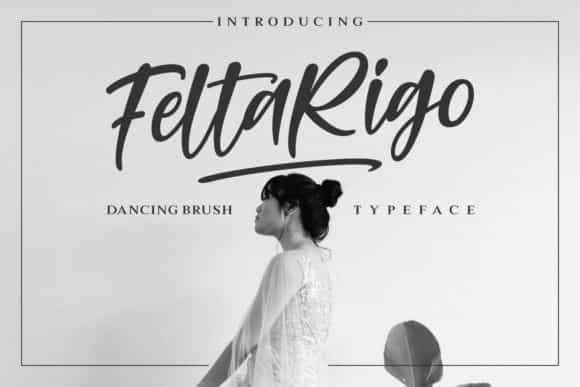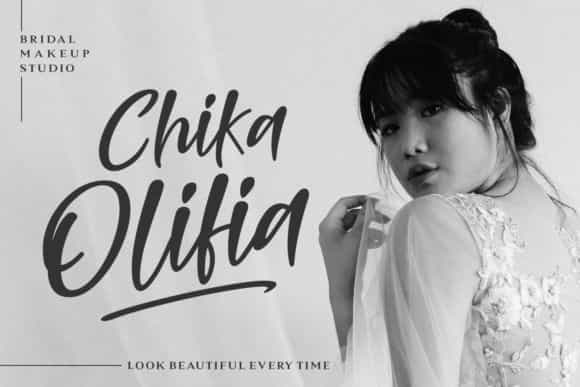
Introducing Feltarigo Font. Feltarigo is a dancing brush script. The surface of the teapot is elegantly curved and it was made with care and paid a lot attention to every detail. Feltarigo can be employed in various types of projects and will add the final personal touch to any design.